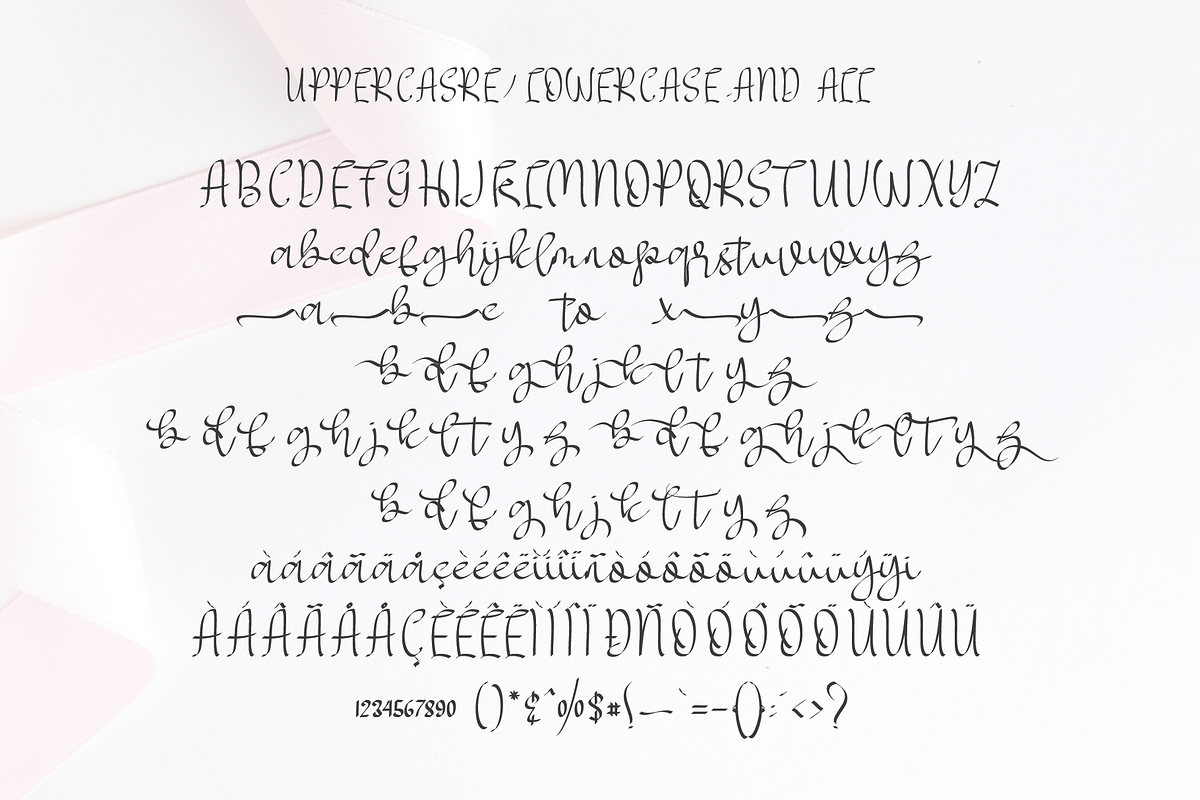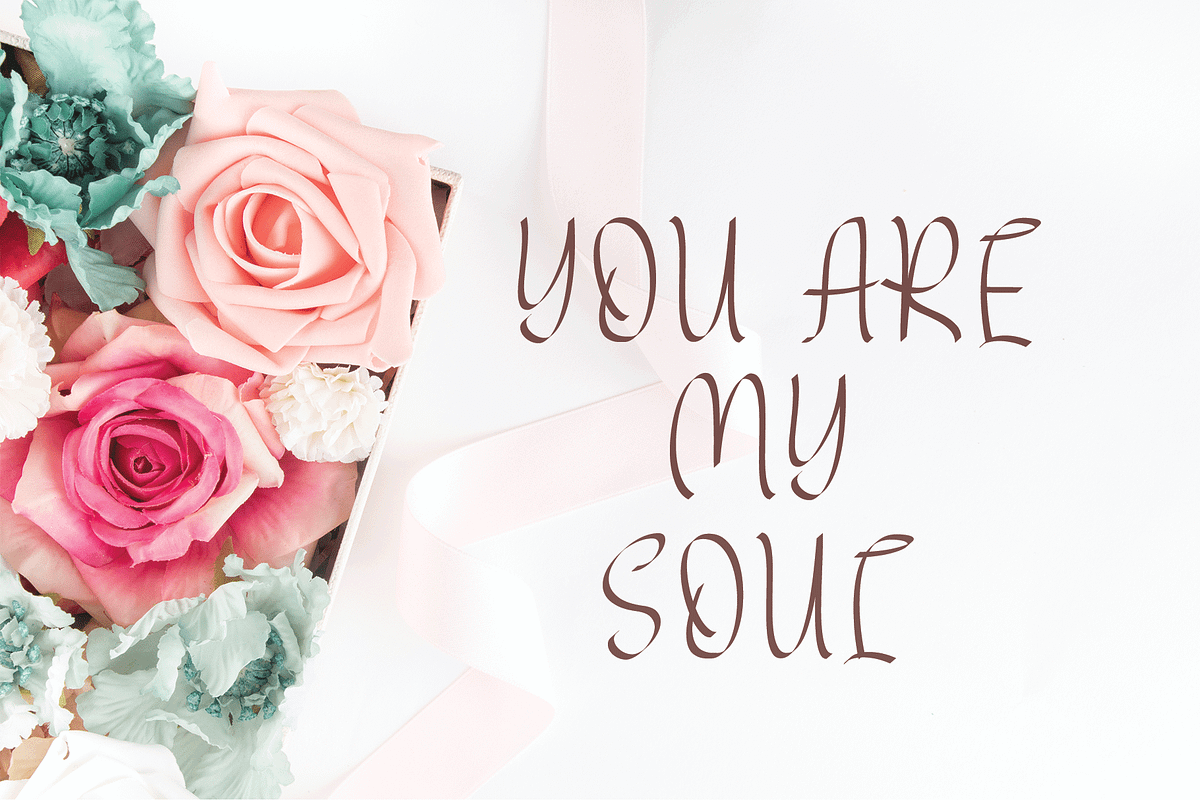
MY LOVE elegant
MY LOVE elegant font duo,, new inspiration for any project you need ,, really an elegant love ... with a combination of two appropriate fonts to adjust the balance between lowercase and lowercase letters,for my love font that just only uppercase , which looks sweet and charming, romantic, sweet, and elegant, All can be used using lowercase letters or uppercase letters, two combinations that are perfect for you ... please check for the suitors ... thank you